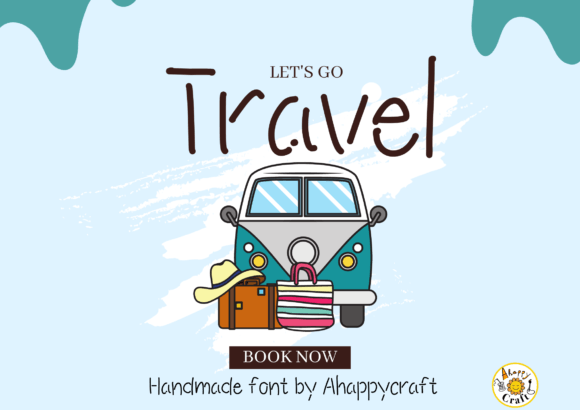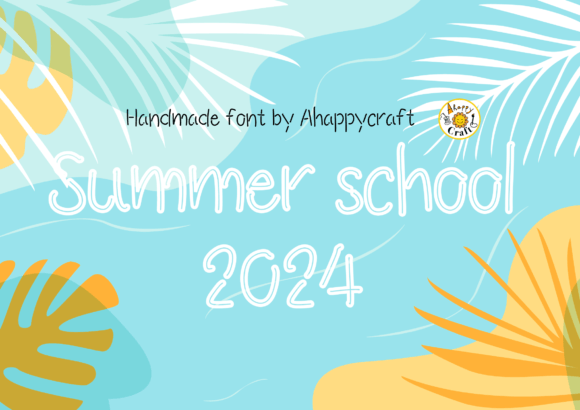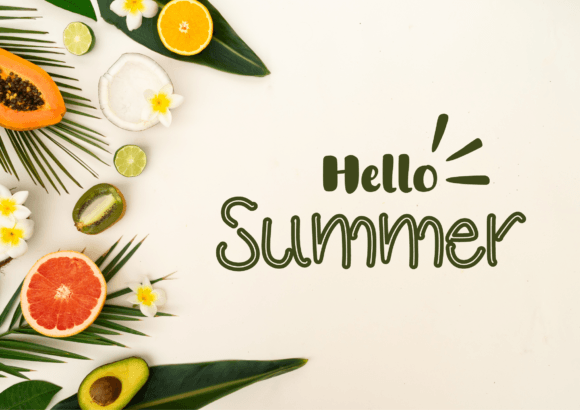
Introducing Disdisconnect Font: The Handmade Touch for Your Designs
In the world of design, fonts play a crucial role in conveying the message and aesthetic of a brand or project. For those seeking a unique and handmade touch, Disdisconnect Font is an excellent choice. This font features lines that are intentionally disconnected, giving it a distinctive and eye-catching appearance. In this article, we’ll explore the features and uses of Disdisconnect Font, and how it can elevate your designs.
What is Disdisconnect Font?
Disdisconnect Font is a carefully crafted, handmade font that boasts a charmingly imperfect aesthetic. The disconnected lines give the font a sense of whimsy and character, making it perfect for designs that require a personal touch. The font is versatile and can be used for a wide range of applications, from elegant crafting to beauty design.
Key Features of Disdisconnect Font
- Handmade with love: Disdisconnect Font is crafted with attention to detail, giving it a unique and personal feel.
- Disconnected lines: The intentional disconnections in the lines create a sense of movement and energy.
- Versatile: Suitable for various design projects, including templates, brochures, videos, advertising branding, logos, invitations, and more.
- Elegant and sophisticated: Despite its handmade nature, Disdisconnect Font exudes elegance and sophistication.
Uses of Disdisconnect Font
Disdisconnect Font is an incredibly versatile font that can be used in a variety of design projects. Here are some ideas to get you started:
- Design templates: Add a personal touch to your templates with Disdisconnect Font, making them stand out from the crowd.
- Brochures and flyers: Use Disdisconnect Font to create eye-catching brochures and flyers that capture the attention of your audience.
- Videos and motion graphics: The unique aesthetic of Disdisconnect Font makes it perfect for video titles, subtitles, and motion graphics.
- Advertising branding: Create memorable brand identities with Disdisconnect Font, which adds a touch of personality to your branding.
- Logos and icons: Use Disdisconnect Font to create distinctive logos and icons that reflect your brand’s values and aesthetic.
- Invitations and stationery: Add a touch of elegance to your invitations, cards, and stationery with Disdisconnect Font.
- Layout design and crafting: Disdisconnect Font is perfect for crafters and designers who want to add a personal touch to their projects.
- Beauty design: Use Disdisconnect Font to create stunning beauty designs, such as makeup tutorials, product packaging, and more.
Why Choose Disdisconnect Font?
With so many fonts available, why choose Disdisconnect Font? Here are a few reasons:
- Unique aesthetic: Disdisconnect Font offers a distinctive and eye-catching appearance that sets it apart from other fonts.
- Handmade charm: The font’s handmade nature gives it a personal touch that resonates with audiences.
- Versatility: Disdisconnect Font can be used in a wide range of design projects, making it a valuable addition to your font library.
- Elegance and sophistication: Despite its handmade nature, Disdisconnect Font exudes elegance and sophistication, making it suitable for high-end designs.
Disdisconnect Font is an exceptional choice for designers and crafters seeking a unique and handmade touch for their projects. Its distinctive aesthetic, versatility, and elegance make it perfect for a wide range of design applications. Whether you’re creating templates, brochures, videos, or beauty designs, Disdisconnect Font is sure to elevate your work and leave a lasting impression on your audience.